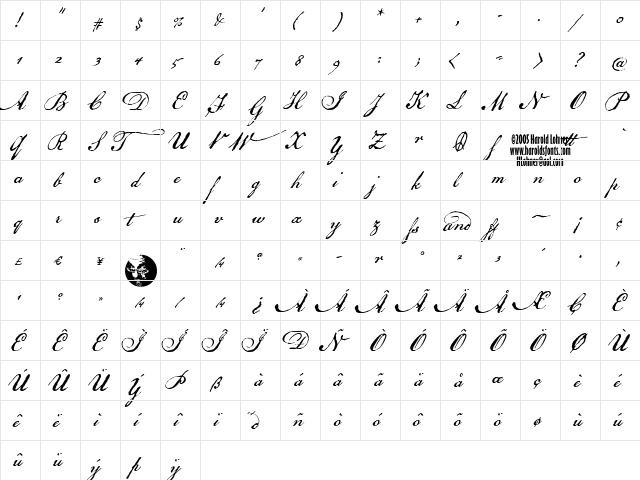
National Archive Regular
| Copyright | NATIONAL ARCHIVE computer font v1.0 05 Harold Lohner "https://www.haroldsfonts.com "  Based on Timothy Matlack's engrossing script as seen in the Declaration of Independence. |
National Archive is a composed and adaptable typeface that performs quietly and consistently across a wide range of design contexts.